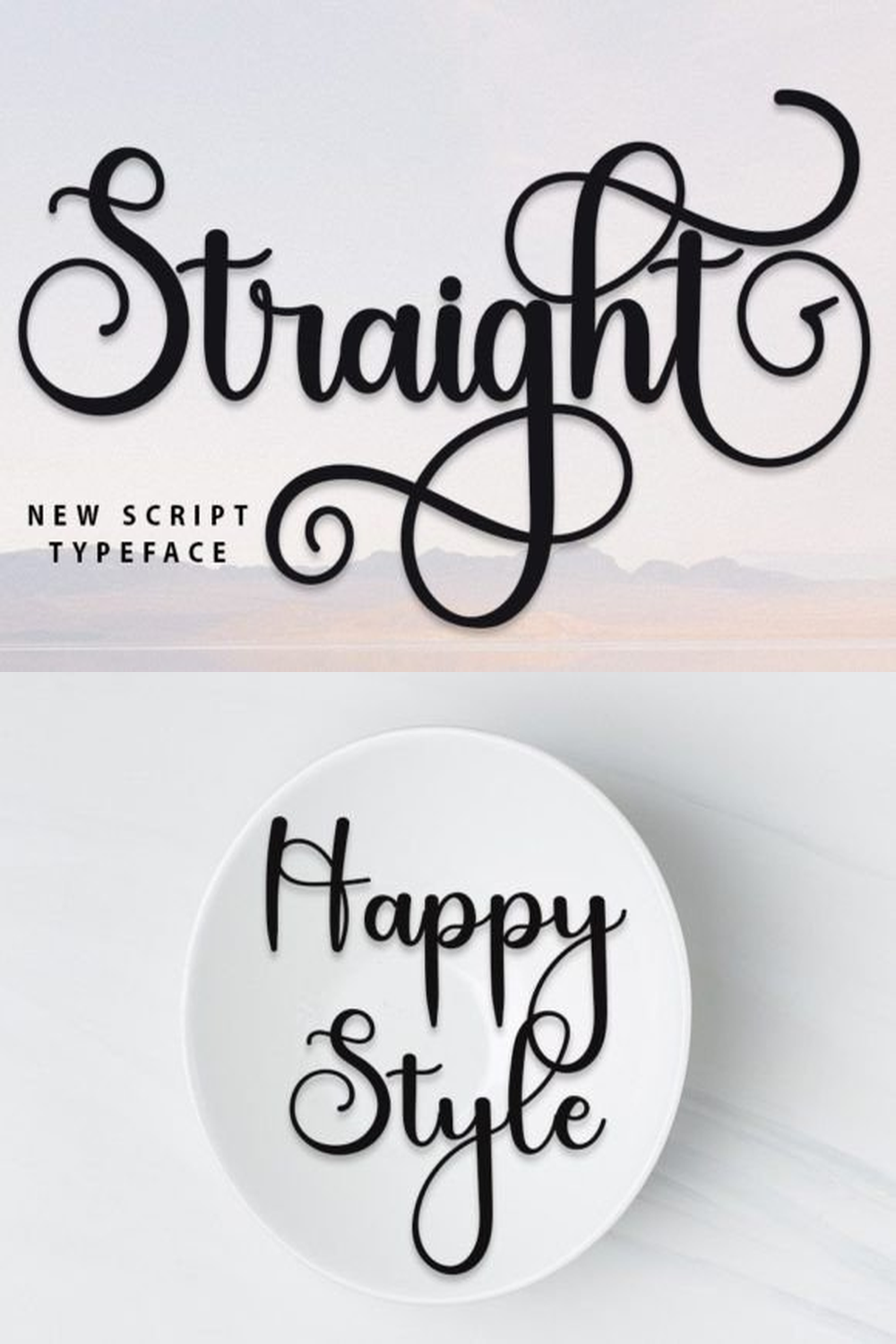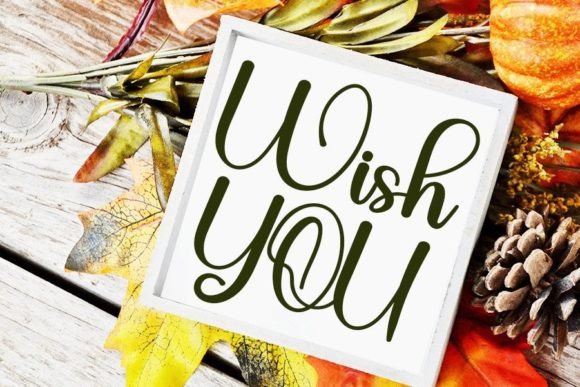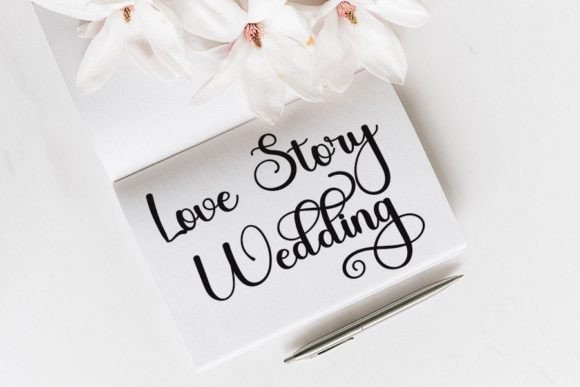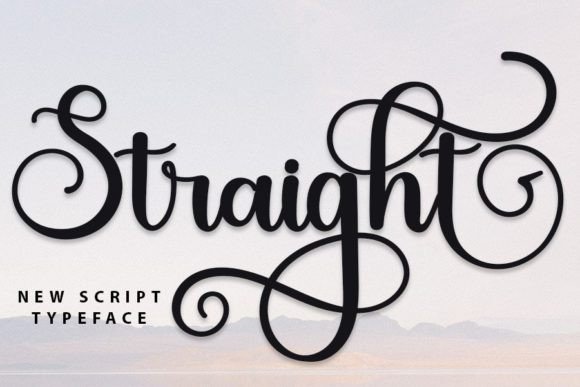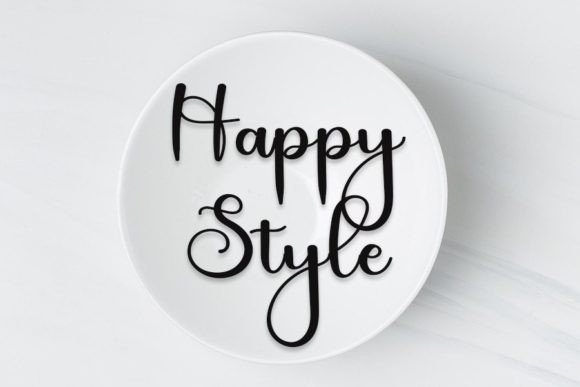
Straight Font: Elegant Calligraphy Script for Wedding Invitations
About the Straight Font
Discover the charm of Straight Font. This font is a perfect blend of modern aesthetics and classic appeal. Straight is a stylish handwritten font with a contemporary atmosphere and impeccable form, inspired by a timeless classic calligraphy. Balanced and varied, this font was designed to enhance the beauty of your projects.
Straight Font Usage Examples